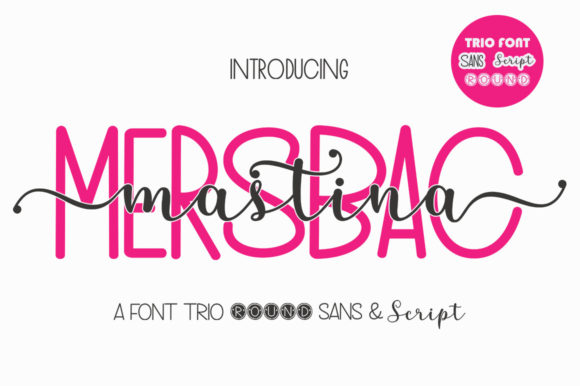
Introducing Mersbac Mastina Font, the new enchanting addition to your design repertoire! Mersbac Mastina is a captivating script font duo that exudes elegance and cheer, transforming your creative vision into a visual spectacle.
With its meticulous craftsmanship, Mersbac Mastina brings a touch of sophistication to your wedding invitations, personal branding, logos, and any other project seeking a stylish flair. Its graceful curves and flowing strokes create an aesthetic that is both timeless and fresh, leaving a lasting impression on your audience.
Unleash your creativity and explore the endless possibilities that Mersbac Mastina holds. Its inherent versatility allows it to seamlessly blend into various styles, from classic to modern, vintage to contemporary. Whether you're designing a delicate wedding invitation or a bold brand identity, Mersbac Mastina adapts effortlessly to your unique vision.
As a PUA-encoded font, Mersbac Mastina grants you easy access to all its glyphs and swashes, empowering you to effortlessly incorporate intricate details and captivating flourishes into your designs. Let your imagination soar and let Mersbac Mastina guide you towards crafting designs that captivate hearts and leave an indelible mark.
Immerse yourself in the world of Mersbac Mastina and discover the limitless ways it can transform your creative pursuits. Embrace its elegance, let your ideas dance, and create masterpieces that resonate with beauty and grace.